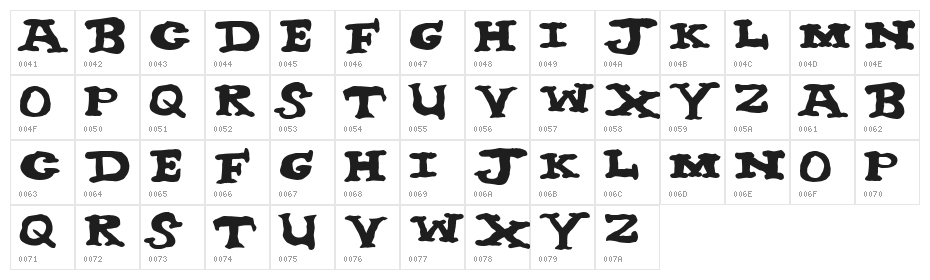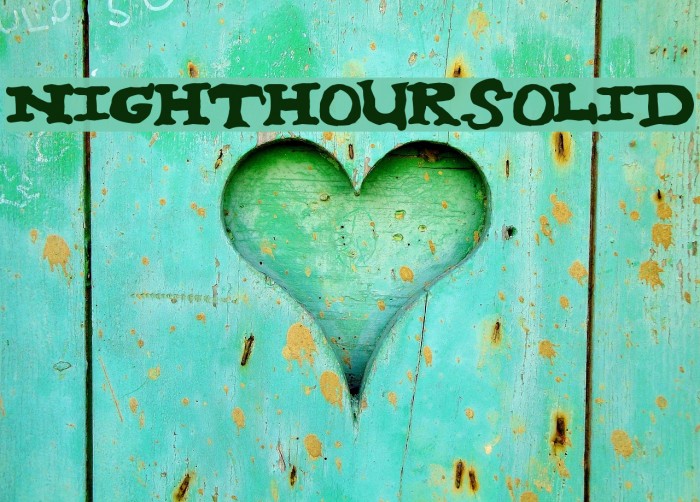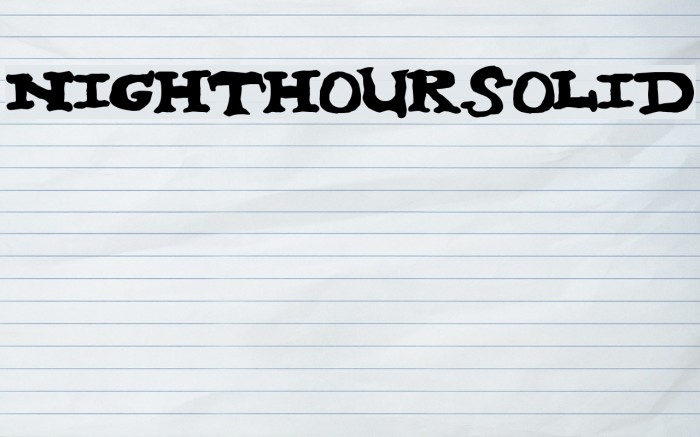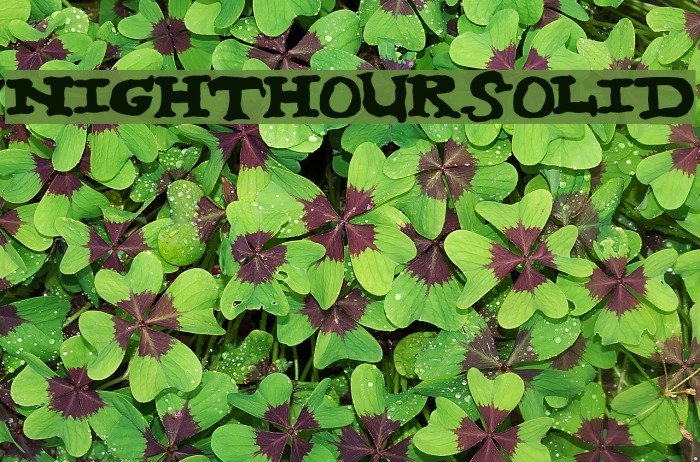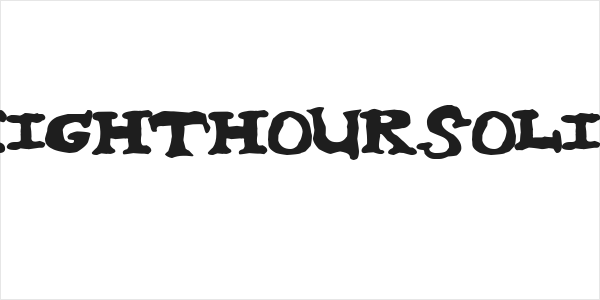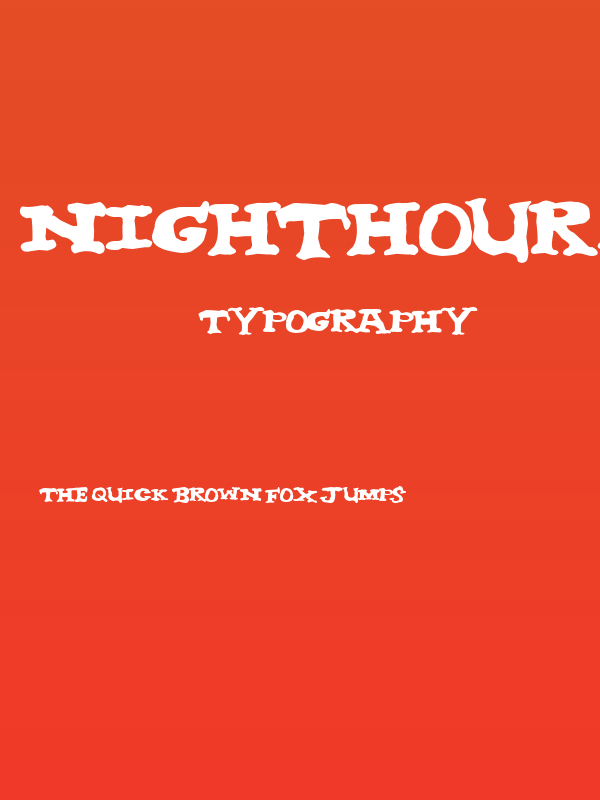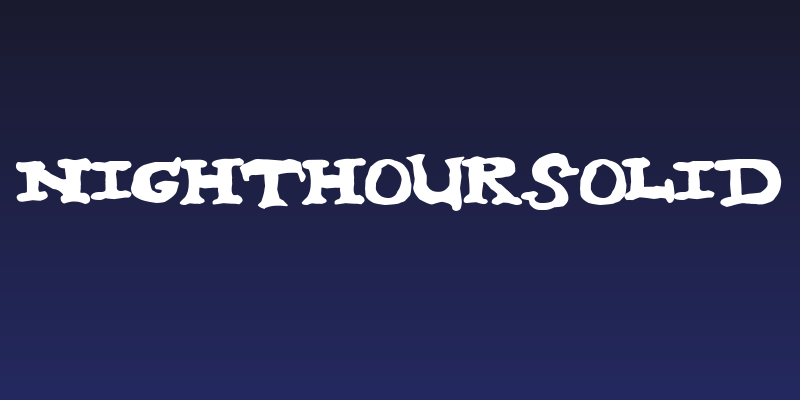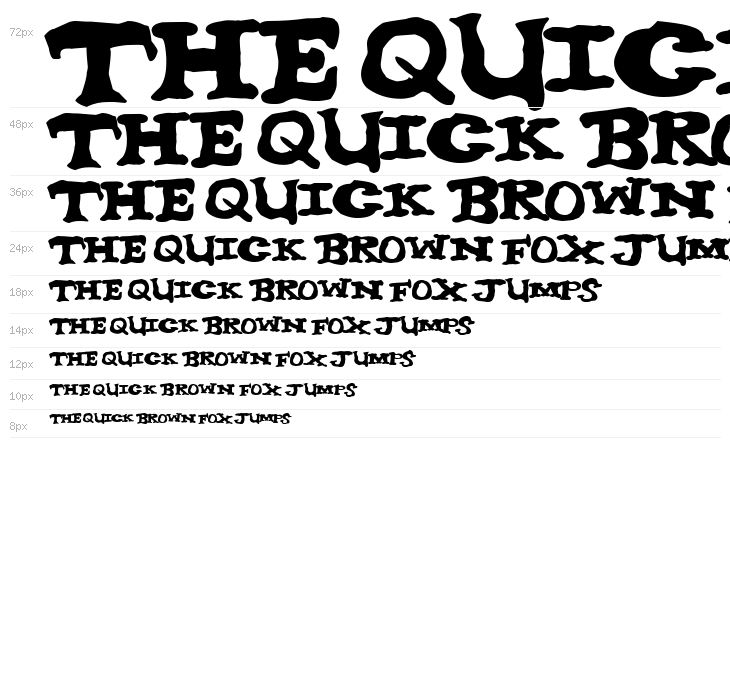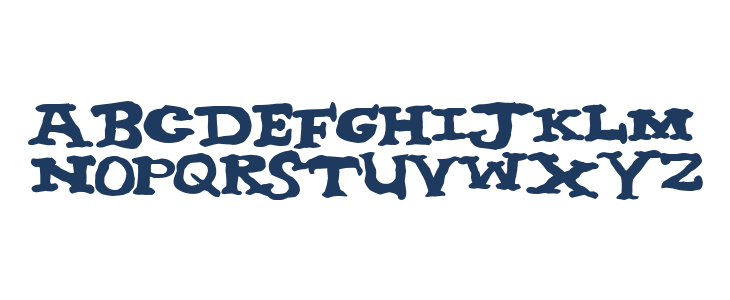
nighthour solid Font
nighthour solid Description
This font features a bold and rugged design, characterized by its thick, uneven strokes and a slightly distressed appearance. The letters have a hand-drawn quality, giving them a unique and organic feel. The uppercase characters are particularly striking, with exaggerated serifs and varying line thicknesses that create a dynamic and eye-catching look. The lowercase letters maintain this style, ensuring consistency throughout the typeface. The numbers and special characters follow the same design principles, making this font versatile for various creative applications.
| Proposed Projects | Ideal for projects that require a bold and distinctive look, such as posters, album covers, branding for edgy or alternative products, and creative headlines. |